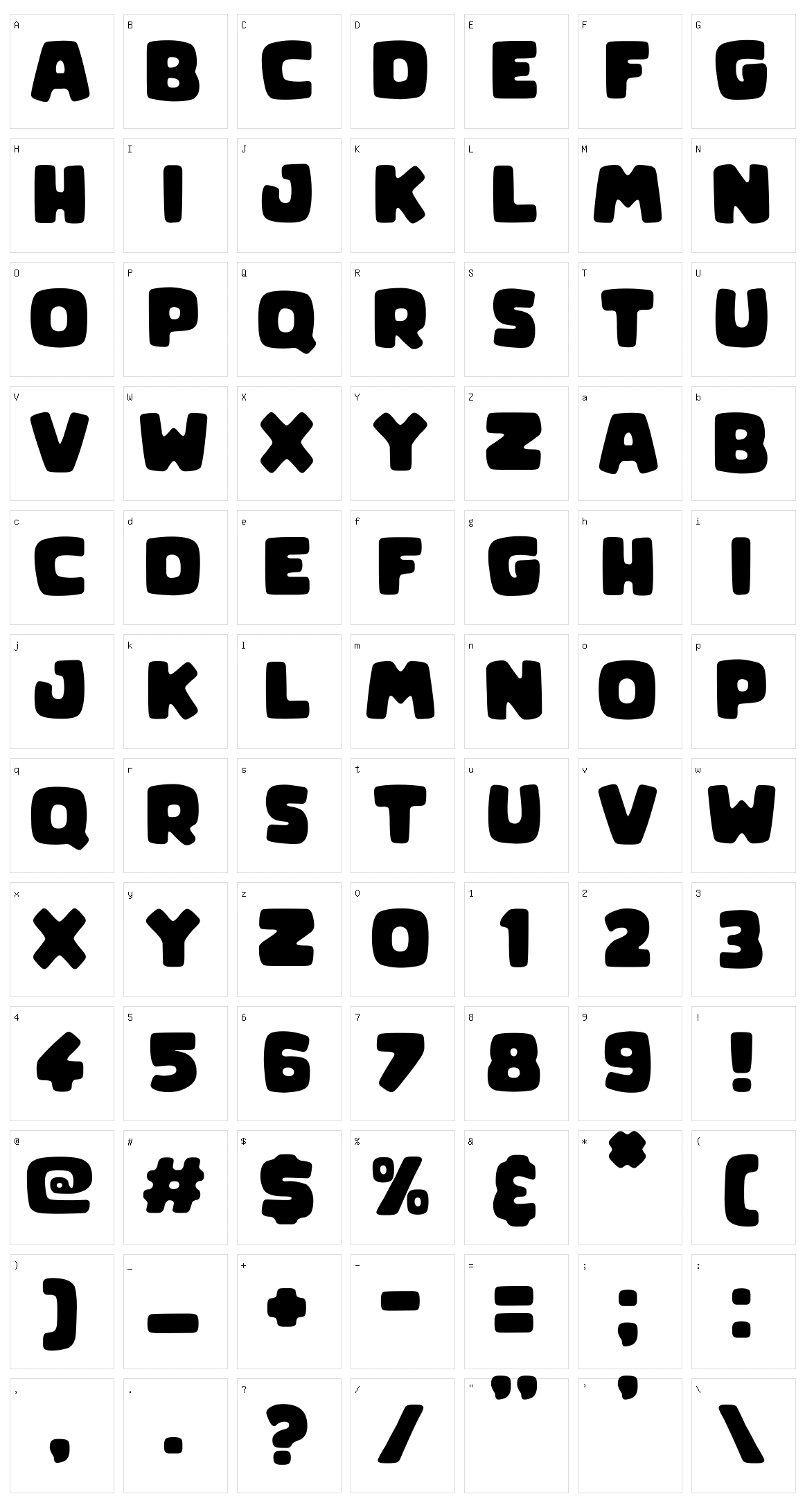
The free font Clone Age is carefully designed by imagex, showcasing a thoughtful balance of creativity and usability and falls under the Cartoon font style. When you download the ZIP file, it contains only 8.13 KB of font files, making it lightweight and quick to download. Please review the license details below to understand permitted usage and distribution rights. If license information is not available, we recommend using this font for personal projects only or contacting the author directly for commercial usage permissions.